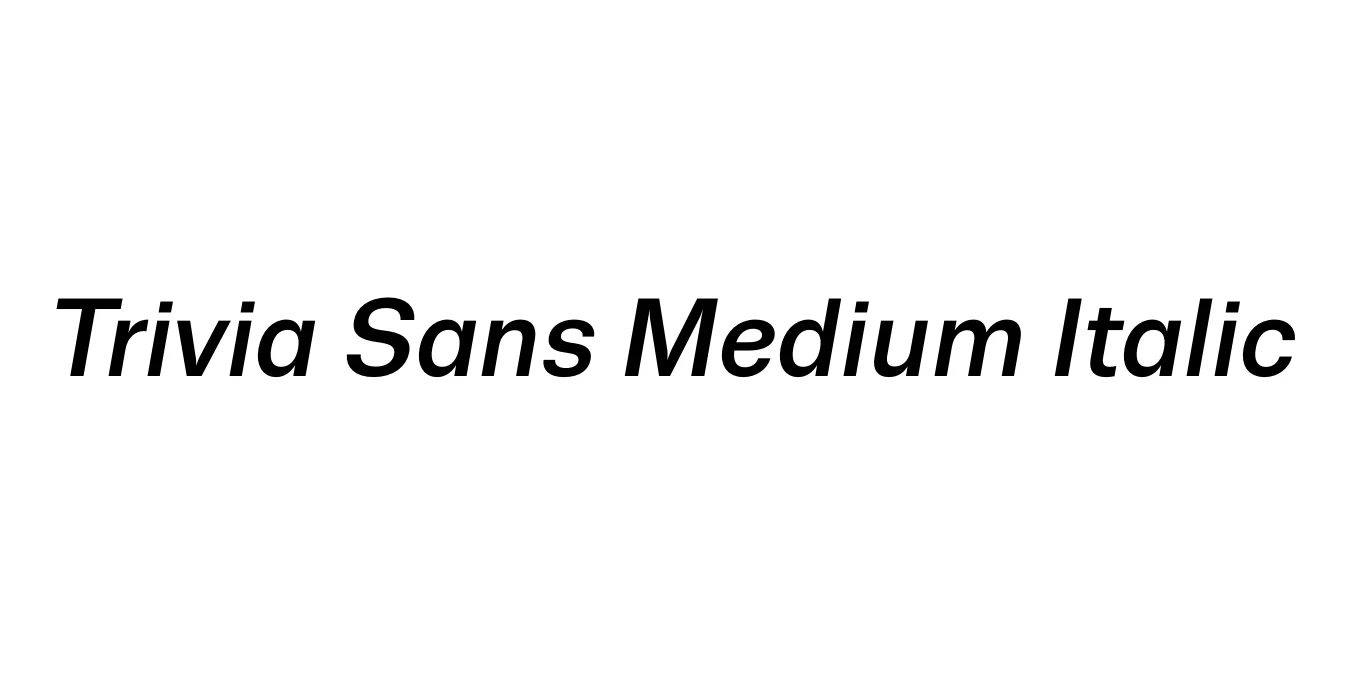
Trivia Sans Medium Italic
Designed by František Štorm
| Category | Humanist Sans Serif |
| Designer | František Štorm |
Trivia Sans Medium Italic is a sophisticated component of the comprehensive Trivia superfamily, meticulously crafted by the renowned Czech typographer František Štorm. This typeface was designed to function as a bridge between the rigorous demands of editorial publishing and the versatility required for modern corporate identity systems. The Medium Italic weight strikes an elegant balance, providing enough visual weight for emphasis while maintaining a rhythmic flow that enhances readability across various media platforms.
The aesthetic of this font is grounded in humanist sans-serif traditions, yet it incorporates subtle geometric refinements that give it a contemporary edge. The italic construction is particularly noteworthy for its refined calligraphic undercurrents, which prevent it from feeling like a mere mechanical slant. Whether utilized in high-end print magazines or streamlined digital interfaces, Trivia Sans Medium Italic offers a professional and distinctive voice for sophisticated typographic layouts.
Trivia Sans Medium Italic Best Uses
Excellent for subheadings, pull quotes, and highlighting key text in journals and magazines.
A strong choice for professional logos, brochures, and formal internal communication.
Highly legible on screens, making it suitable for UI elements and emphasized body copy.